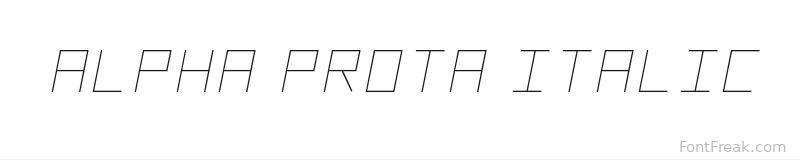
Alpha Prota
About Alpha Prota
Alpha Prota, designed by GGBot, is a striking display font that effortlessly blends modernity with a unique flair. This font is categorized as a sans-serif, characterized by its clean lines and minimalist aesthetic. The design features a balanced stroke weight, providing both stability and elegance, while the italic style adds a dynamic quality to the letters. The spacing is thoughtfully adjusted, ensuring readability without sacrificing style, making it suitable for various applications.
The visual characteristics of Alpha Prota are marked by its contemporary geometric shapes and subtle curves, which contribute to its distinctive personality. Its italic form injects a sense of motion, making it particularly eye-catching in design projects. This font is versatile enough to shine in a variety of contexts, such as wedding invitations where a touch of sophistication is necessary, movie posters that require boldness and clarity, restaurant menus that aim for an inviting atmosphere, and branding materials for startups looking to make a memorable impression.
In conclusion, the Alpha Prota font stands out due to its unique combination of modern elegance and practicality. Its ability to convey both professionalism and creativity makes it a go-to choice for anyone seeking to enhance their design work. With the Alpha Prota font free download, you can bring a touch of innovation to your next project.